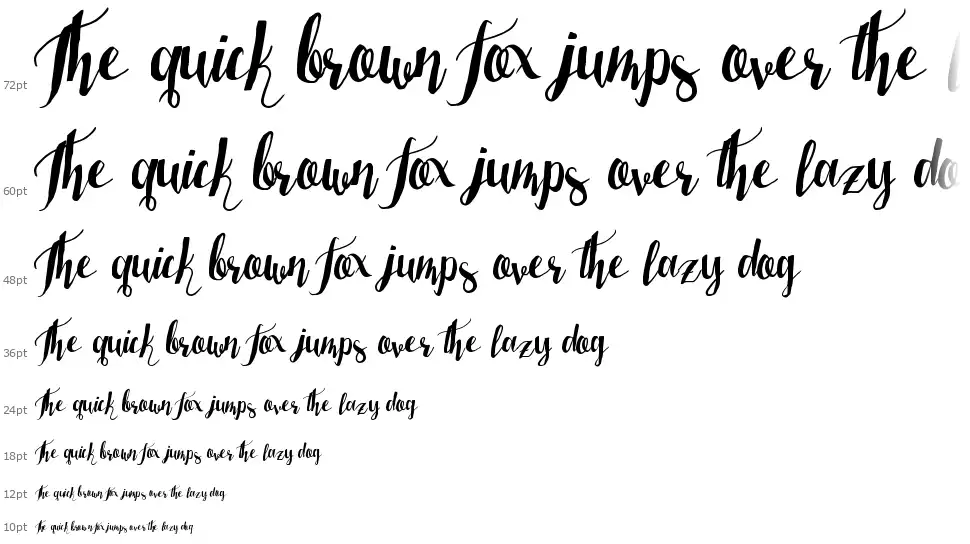
Laser Metal Font - Web laser metal font is a script, various font designed by denise bentulan. Click now to create a. Web download and install the laser metal font by denise bentulan. The laser metal font has been downloaded 41,521 times. Laser metal is a free font for personal use created by denise bentulan.
Laser Metal Font - The laser metal font has been downloaded 41,521 times. Web we have compiled 20 free laser cutting fonts that are available for free download. Web 483,059 downloads (5 yesterday) 2 comments free for personal use. Web download and install the laser metal font by denise bentulan. Web laser metal font is a script, various font designed by denise bentulan.
Laser Metal Font - Web we have compiled 20 free laser cutting fonts that are available for free download. Web laser metal font is a script, various font designed by denise bentulan. Web download and install the laser metal font by denise bentulan. Laser metal font is available for free download for. Laser metal is a free font for personal use created by denise.
Laser Metal Font - Click now to create a. Web download and install the laser metal font by denise bentulan. Web 483,059 downloads (5 yesterday) 2 comments free for personal use. Web we have compiled 20 free laser cutting fonts that are available for free download. When laser cutting sheet metal, for example, where there is also text, it is.
Laser Metal Font - When laser cutting sheet metal, for example, where there is also text, it is. Web 483,059 downloads (5 yesterday) 2 comments free for personal use. Web laser metal font is a script, various font designed by denise bentulan. Laser metal is a free font for personal use created by denise bentulan. Web browse and download 17 free fonts in the.
Laser Metal Font - Web laser metal font download is available free from fontget. Web we have compiled 20 free laser cutting fonts that are available for free download. Click now to create a. Web laser metal font is a script, various font designed by denise bentulan. The laser metal font has been downloaded 41,521 times.